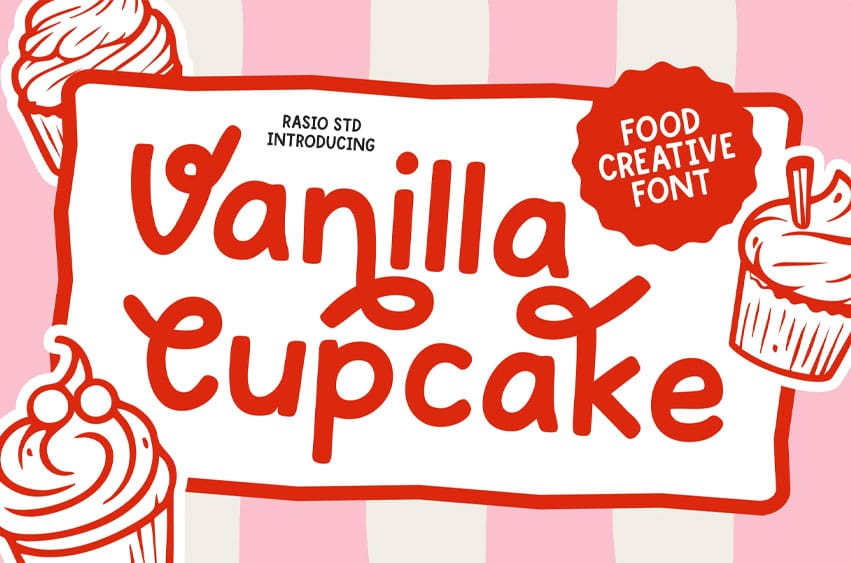
Vanilla Cupcake Font Food Creative Font is a decorative typeface full of sweetness and charm. Designed with bold strokes, playful shapes, and a handmade vibe, this font captures the fun spirit of food-inspired lettering. It includes uppercase, lowercase, numbers, and punctuation, all styled with a quirky and cheerful look. A perfect choice for projects that want to radiate joy, creativity, and tasty personality.
Relevance and Use Cases are perfect for bakery packaging, cupcake shop branding, candy and sweets labels, cafe menu design, children’s books, cheerful posters, playful social media graphics, handmade product labels, lifestyle blog headers, YouTube thumbnails, journaling templates, cute printable designs, and colorful creative projects.